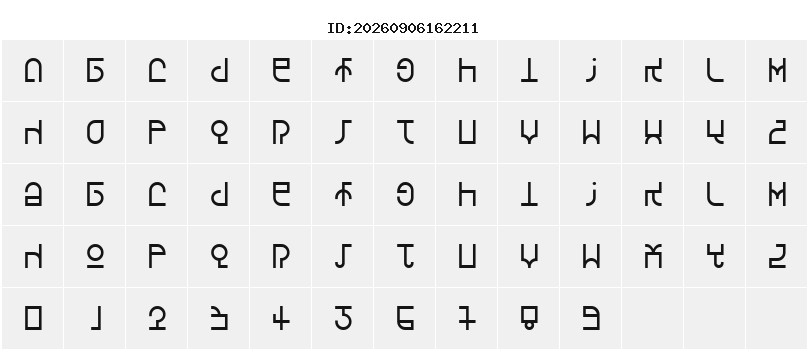
• Font Name: TX Free Tinka
About TX Free Tinka.ttf
TX Free Tinka.ttf is a modern, elegant sans-serif font designed for ultimate readability and visual harmony. Perfect for branding, headlines, web design, and print materials.